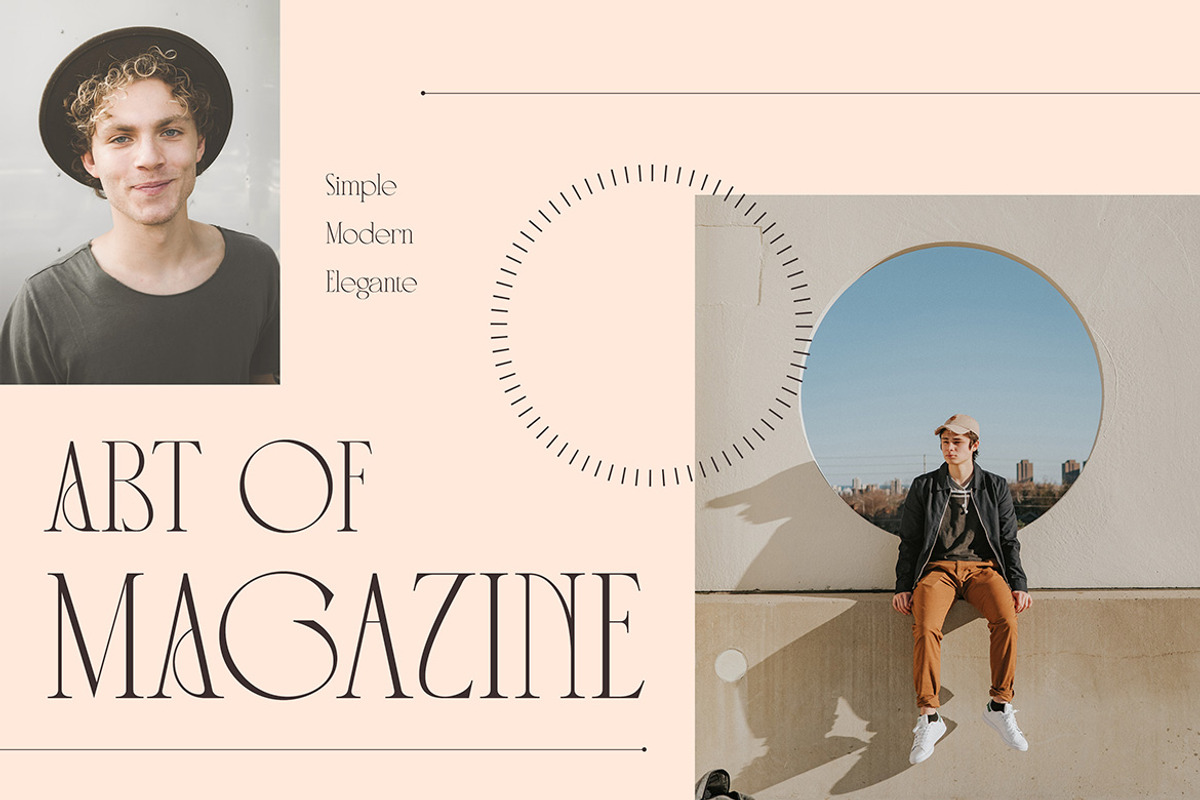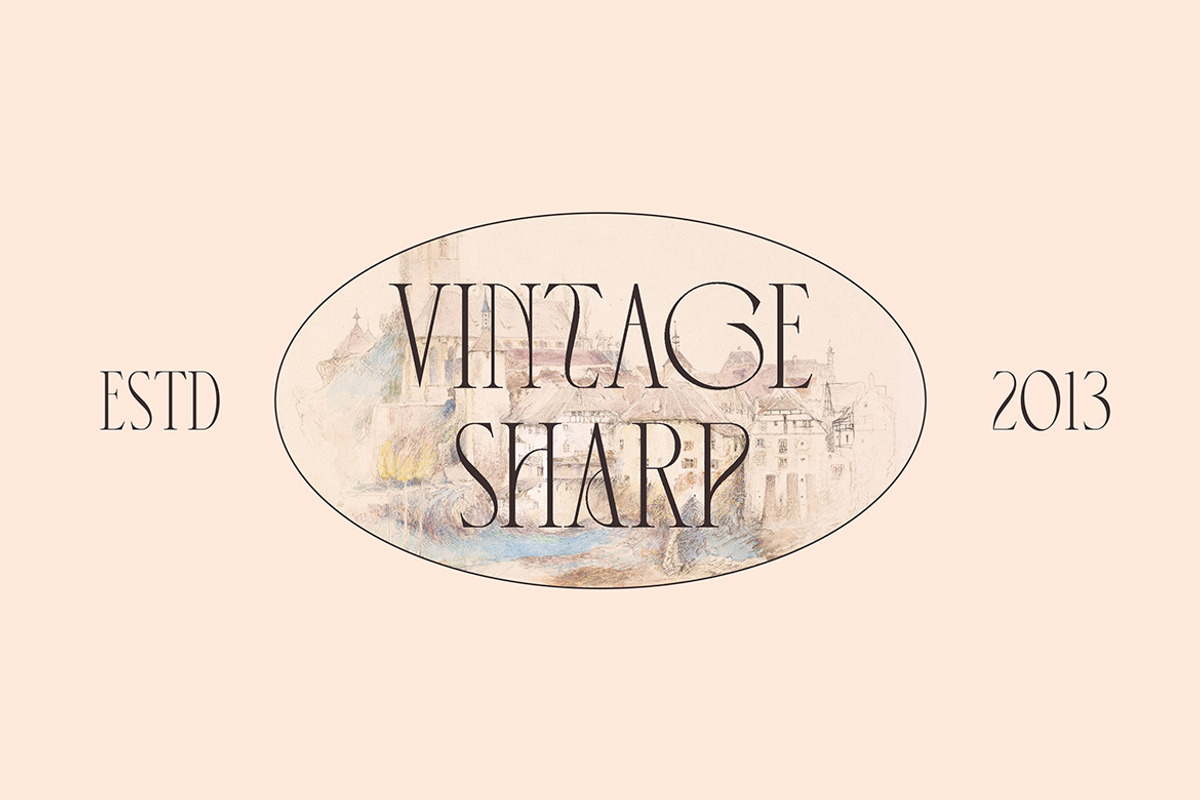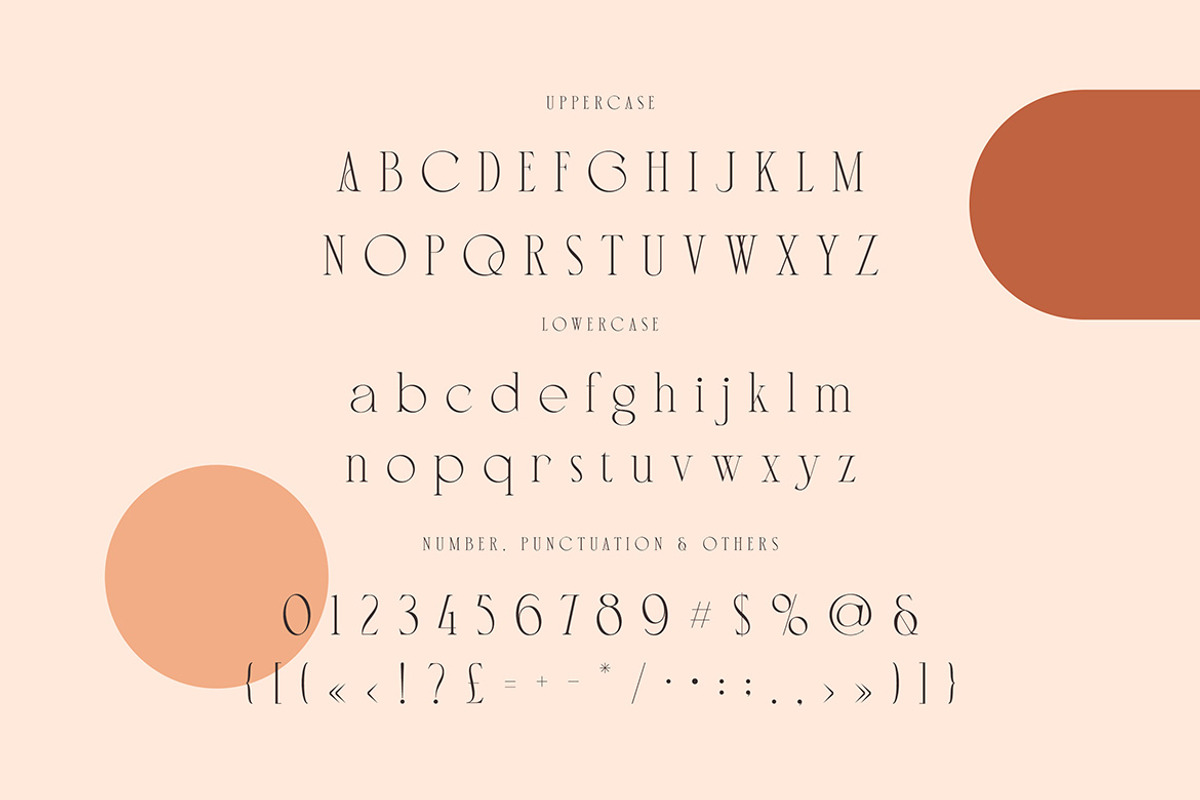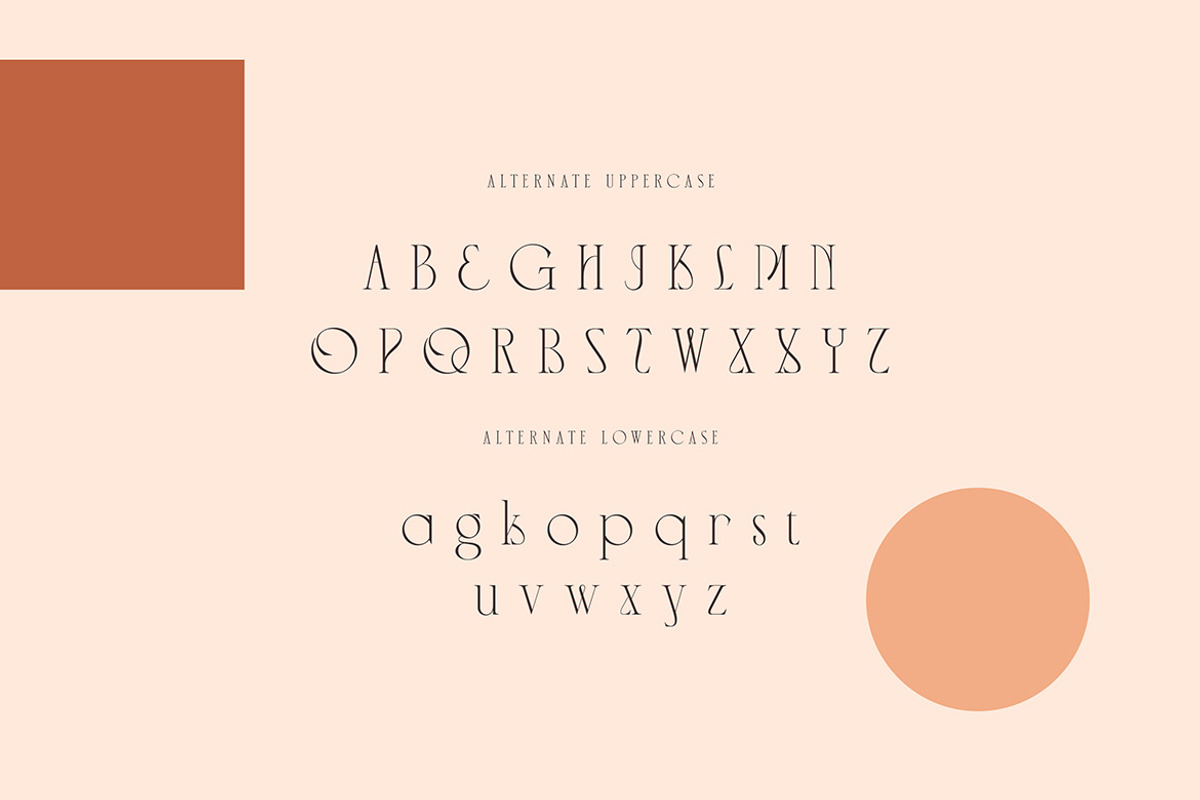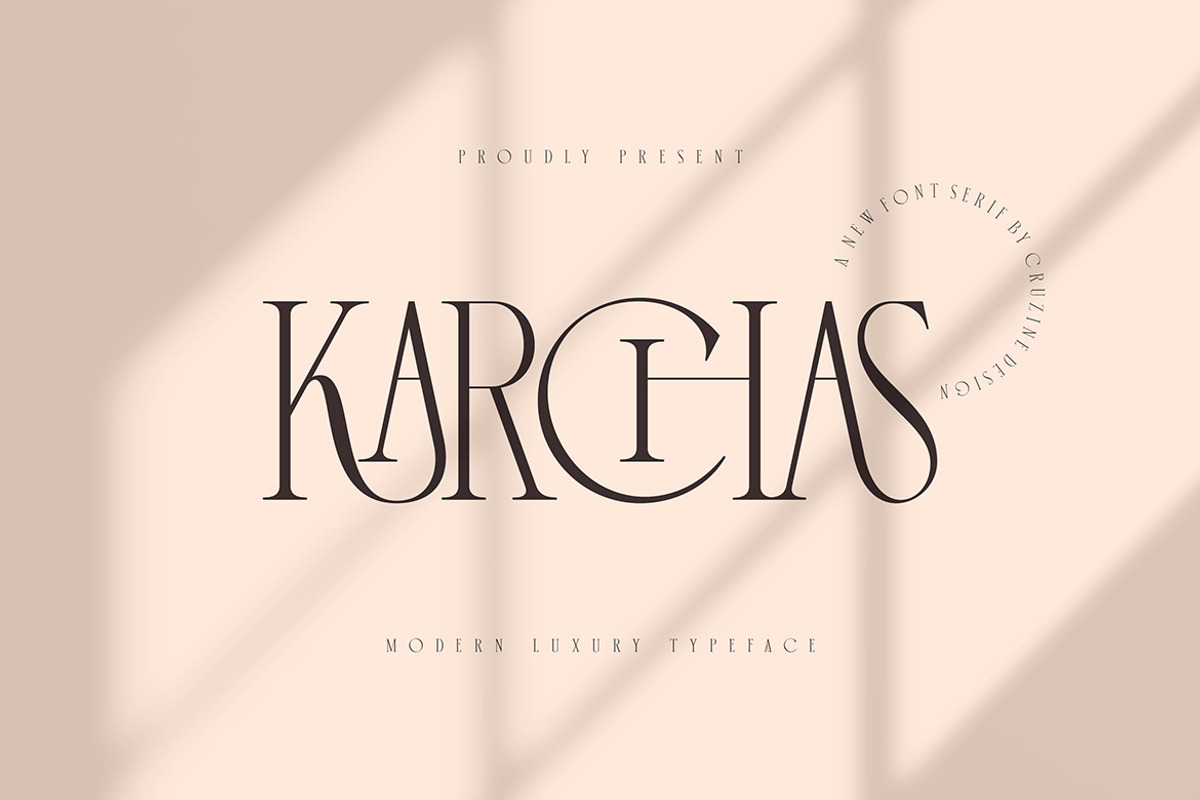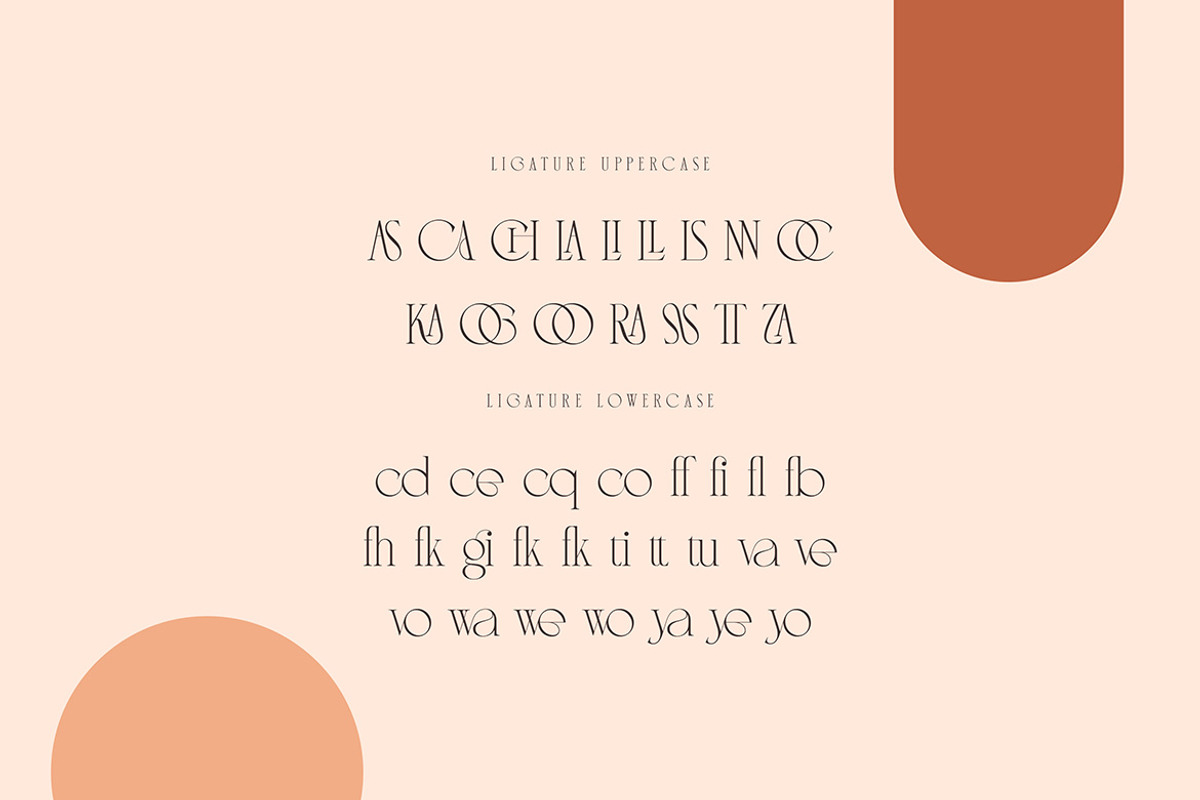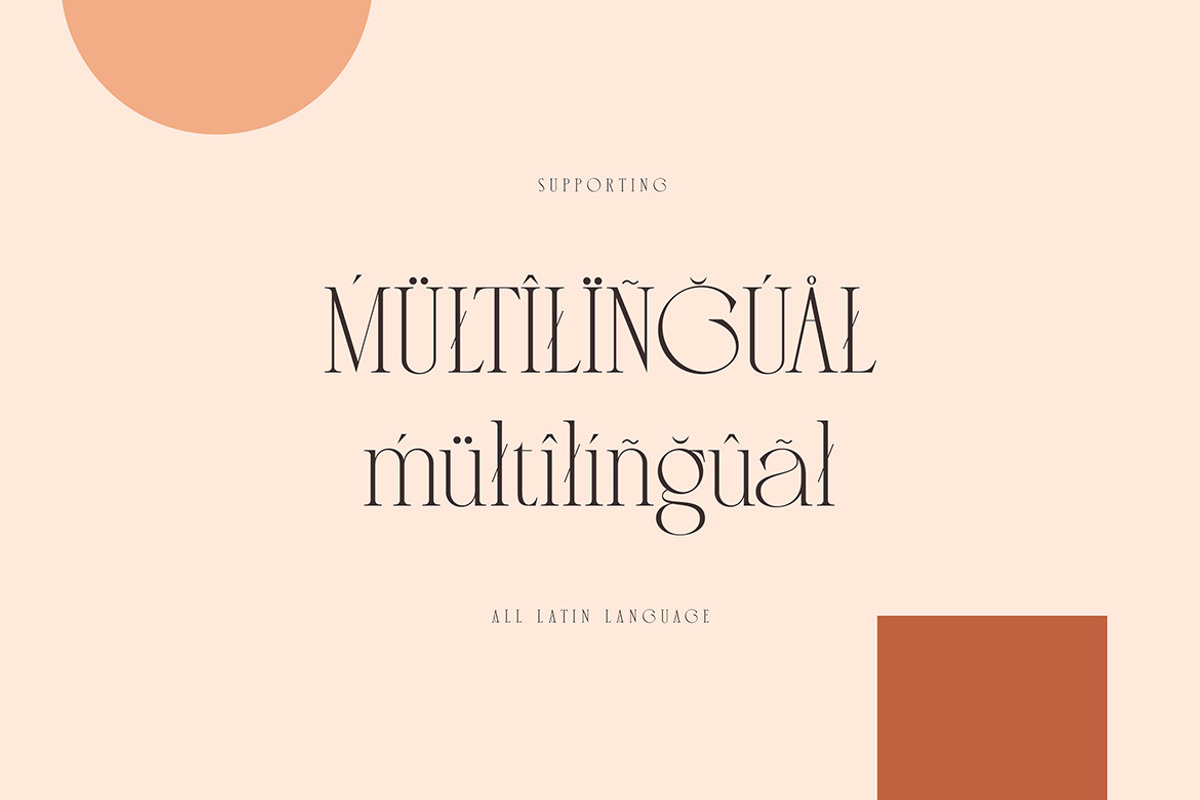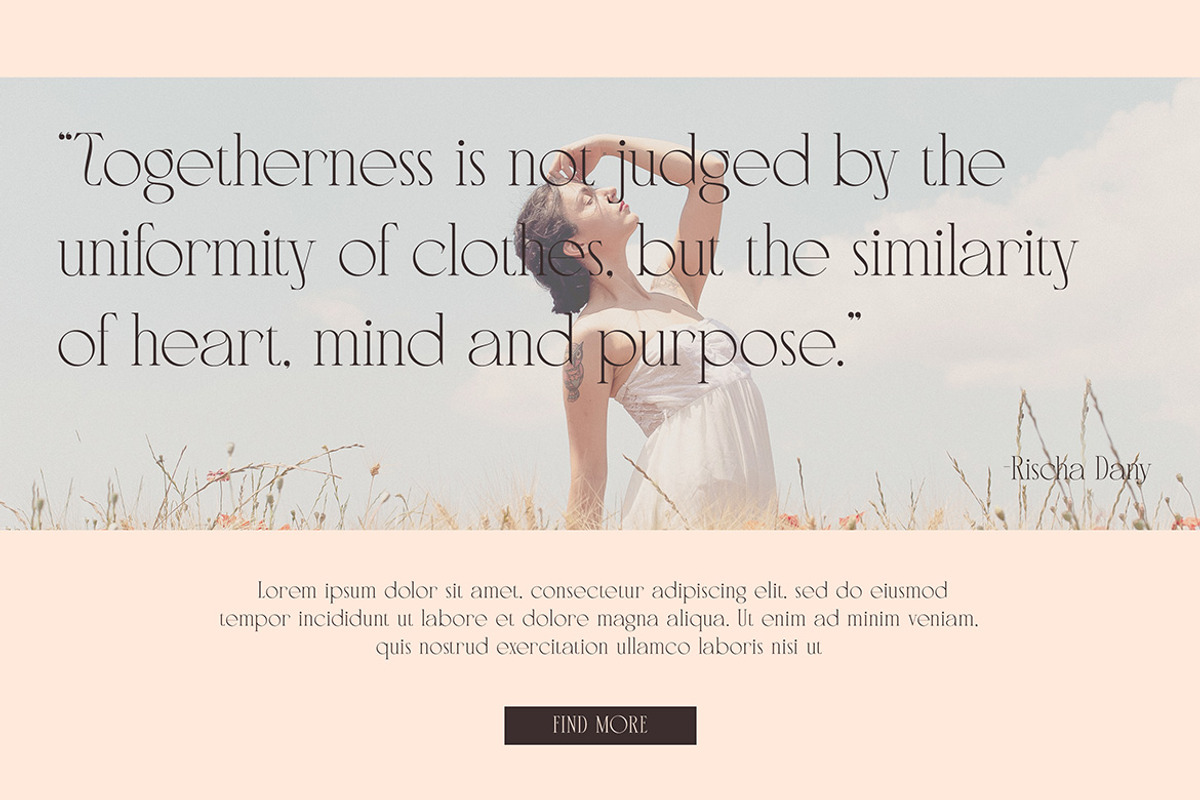
Karchas - Elegant Serif Font
Trendy, classy & modern style serif font for your fancy projects. Elegant, fashion and classic style on Karchas font will be great for any branding project. Lot of alternates and ligatures will help you to create unique and original logo design or website header! Enjoy :)
- Lot of alternate characters
- Lot of ligatures
Great for modern branding projects!